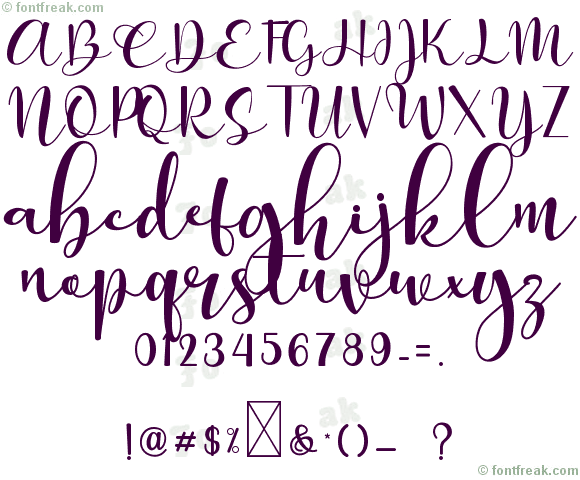
Sunflowers
The Sunflowers font by Eknoji Studio is a stunning handwritten typeface that exudes warmth and charm, making it an excellent choice for various creative projects. This font features a fluid, cursive style with elegant, sweeping strokes that provide a sense of movement and personality. The strokes vary in weight, creating a beautiful contrast that adds depth and visual interest. The spacing is generous, allowing for easy readability while maintaining an artistic flair. Decorative elements, such as the playful loops and flourishes, enhance its cheerful appeal, reminiscent of sunflowers swaying in a gentle breeze.
Sunflowers is particularly well-suited for wedding invitations, where its romantic and whimsical nature can set the perfect tone for a special day. It also shines in branding for small businesses, especially those in the floral or artisanal sectors, as it can convey a sense of authenticity and creativity. Content creators can utilize this font for social media graphics, posters, or promotional materials, drawing attention with its unique character. Additionally, it works beautifully for greeting cards and stationery, adding a personal touch to heartfelt messages.
Targeted primarily at graphic designers, small business owners, and content creators, Sunflowers offers a versatile option for those looking to infuse their work with a vibrant and inviting aesthetic. This font stands out due to its distinctive charm and versatility, allowing users to create visually captivating designs that leave a lasting impression. Best of all, the Sunflowers font is available for free download, making it an accessible choice for anyone eager to elevate their creative projects without breaking the bank.